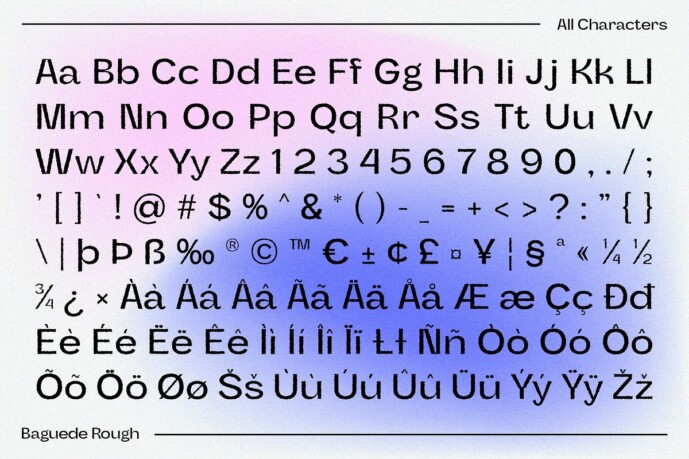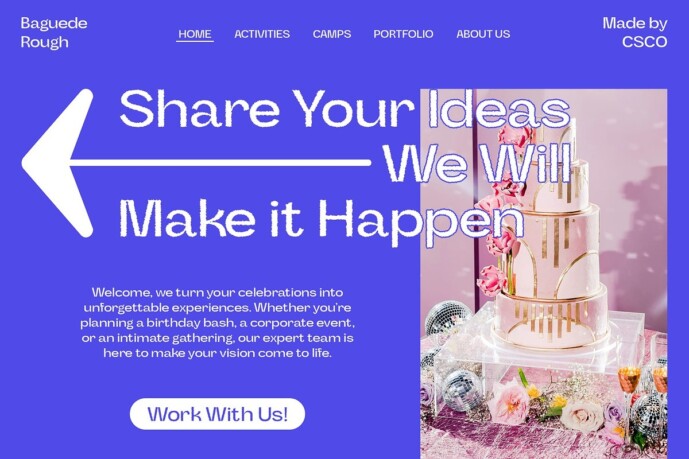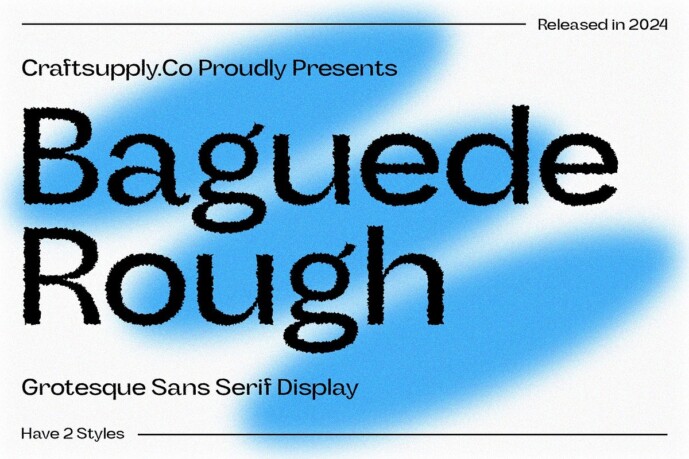
Baguede Rough Font
Baguede Rough Font is a sans-serif font that embodies a grotesque form, offering a minimalist design characterized by clean, functional lines. Its simplicity and practicality shine through, making it a versatile choice for various design contexts. The lack of additional decorations ensures a streamlined, modern aesthetic that prioritizes clarity.
Textured Rough Effect The rough effect introduces a distinctive dimension to Baguede Rough, adding texture and character to the otherwise straightforward design. This texture creates a bolder, more engaging appearance, enriching the font’s visual appeal while maintaining its minimalist integrity.
Versatile and Readable Baguede Rough excels in text displays and graphic designs where high readability is essential. Its clear, functional design combined with the textured rough effect makes it suitable for a wide range of media and contexts. Ideal for projects that require a unique and clear look, Baguede Rough stands out with its striking yet practical design.
Ideal for Various Applications From editorial layouts to graphic design projects, Baguede Rough offers a unique blend of simplicity and texture. Its minimalist form and textured details ensure that it remains both practical and visually compelling, making it a versatile choice for diverse design needs.